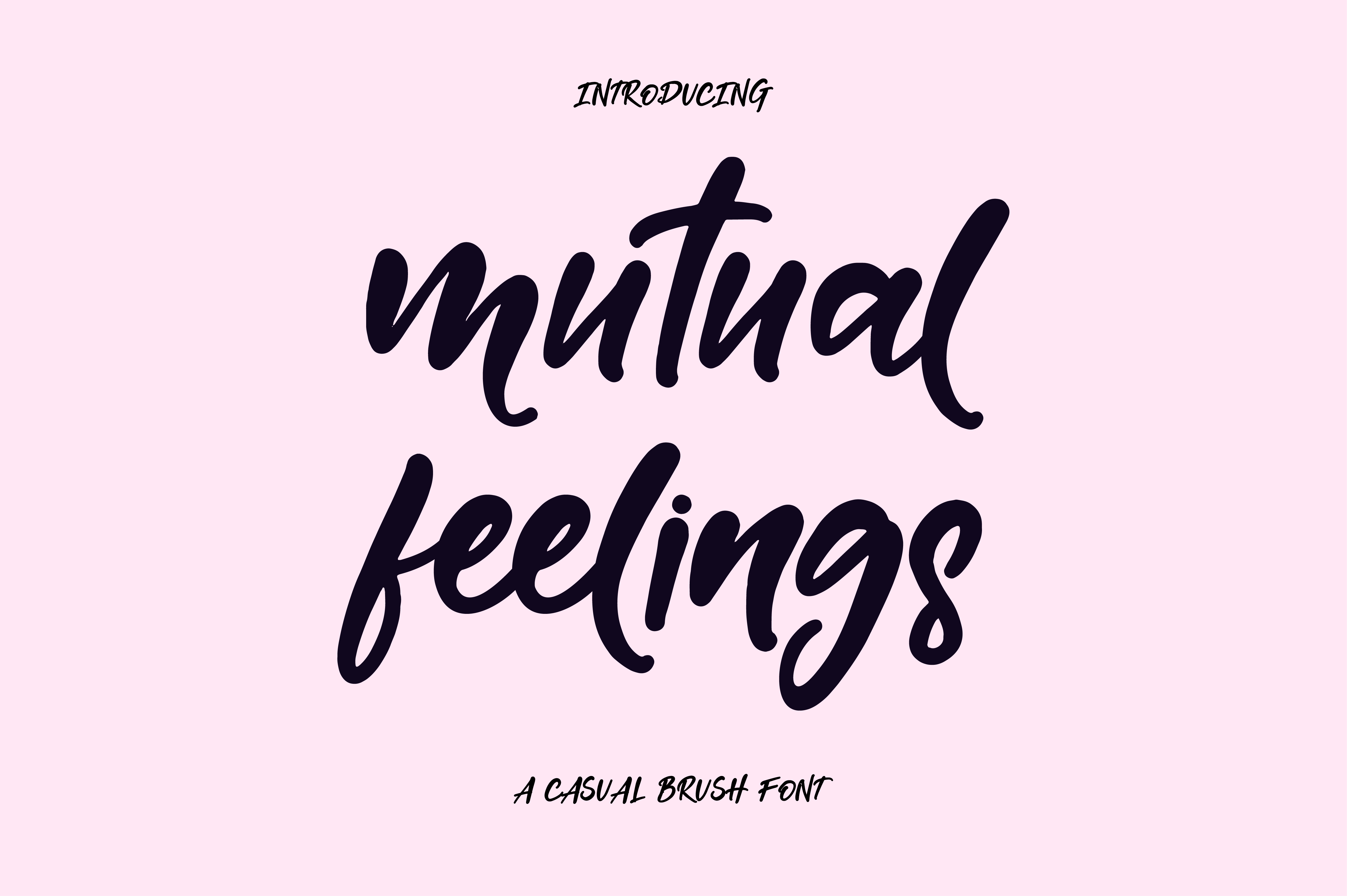
Mutual Feelings Font
Introducing mutual feelings a fun brush font with a bounce. Mutual Feelings will give your designs a casual yet fun look. It's ideal for greeting cards, logos, quotes, prints, apparel designs and so much more!